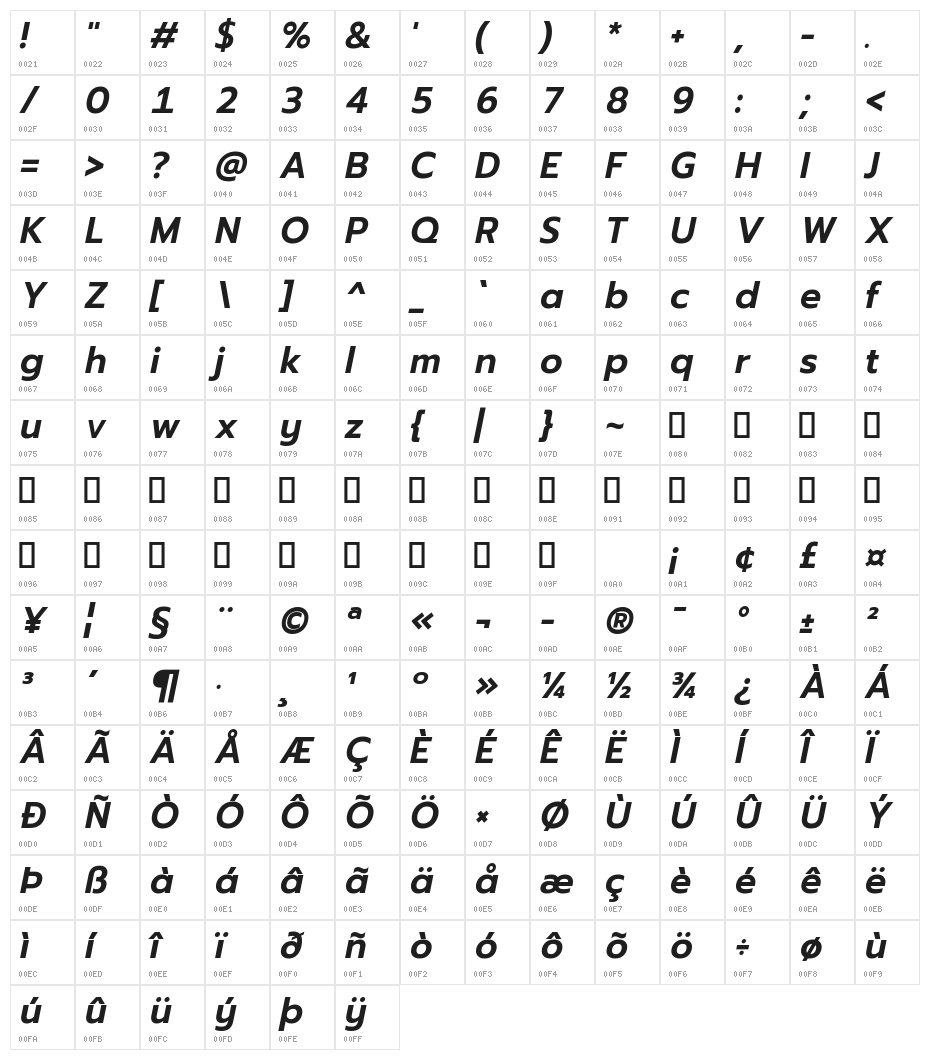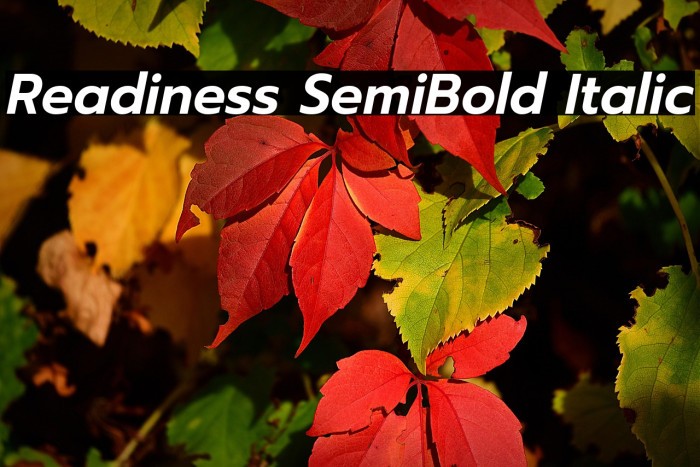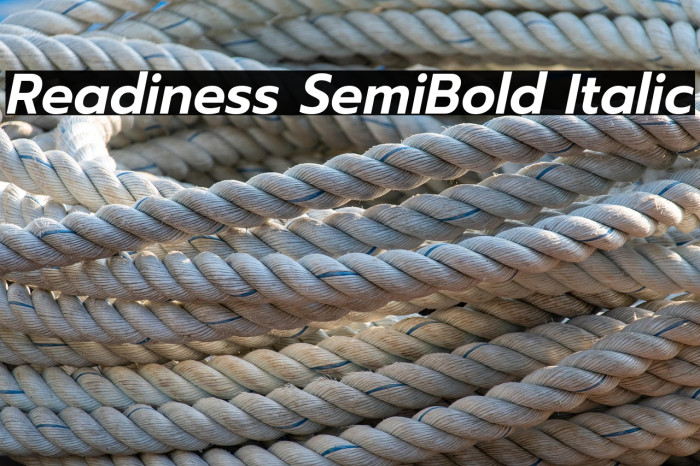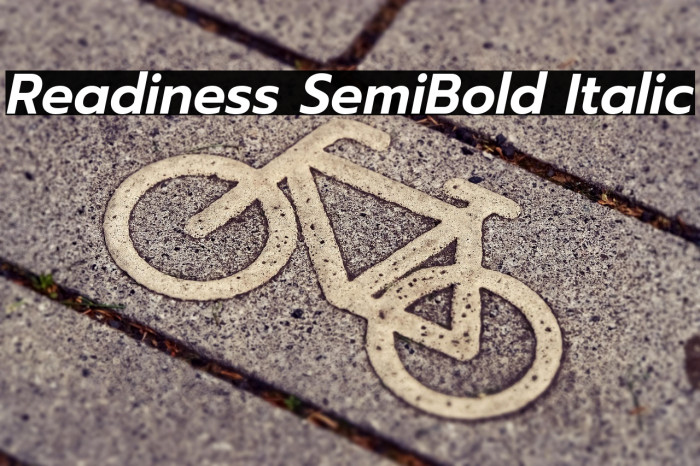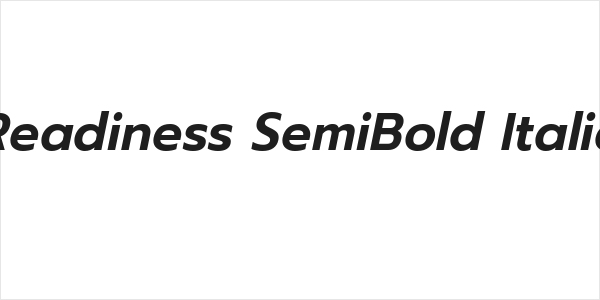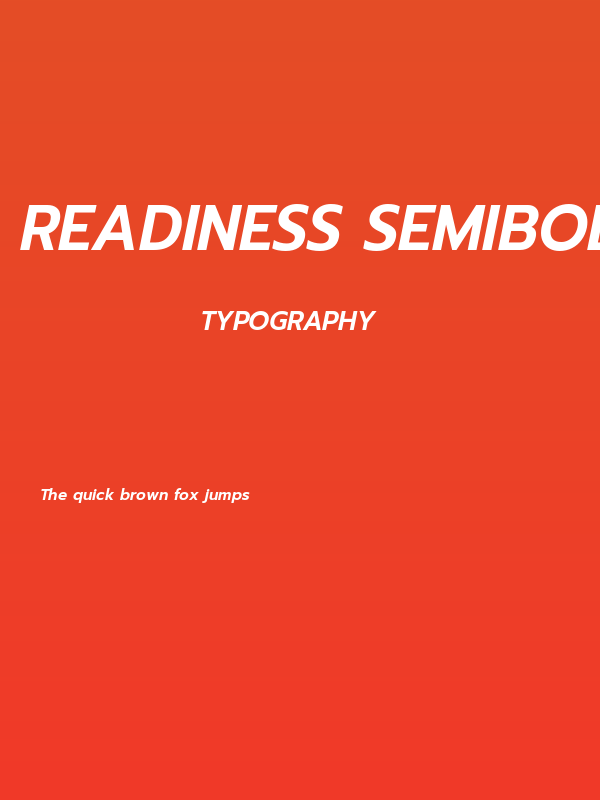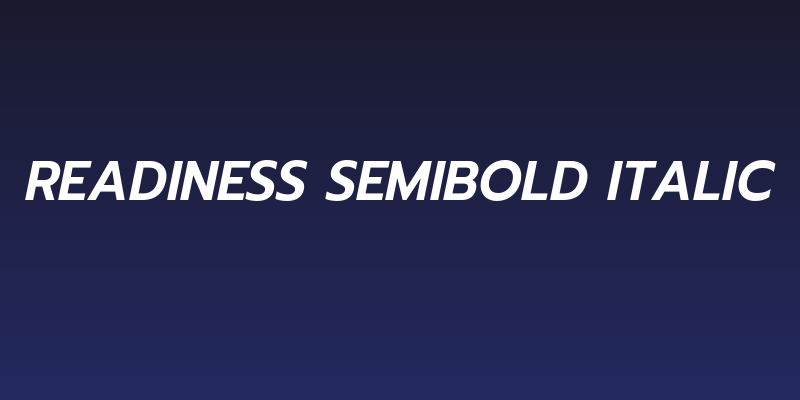
Readiness SemiBold Italic Font
Readiness SemiBold Italic Description
This font exhibits a modern and sleek design with a semi-bold weight and italic style. The characters are slightly slanted, giving a dynamic and forward-moving appearance. The strokes are consistent, providing a balanced and harmonious look. The uppercase letters are bold and commanding, while the lowercase letters maintain a smooth and approachable feel. The numerals are clear and easily distinguishable, making them suitable for various applications. Special characters are well-defined, adding versatility to the font's use. The overall design is clean and professional, making it ideal for contemporary projects.
| Proposed Projects | Ideal for branding, advertising, and editorial design where a modern and professional look is desired. |